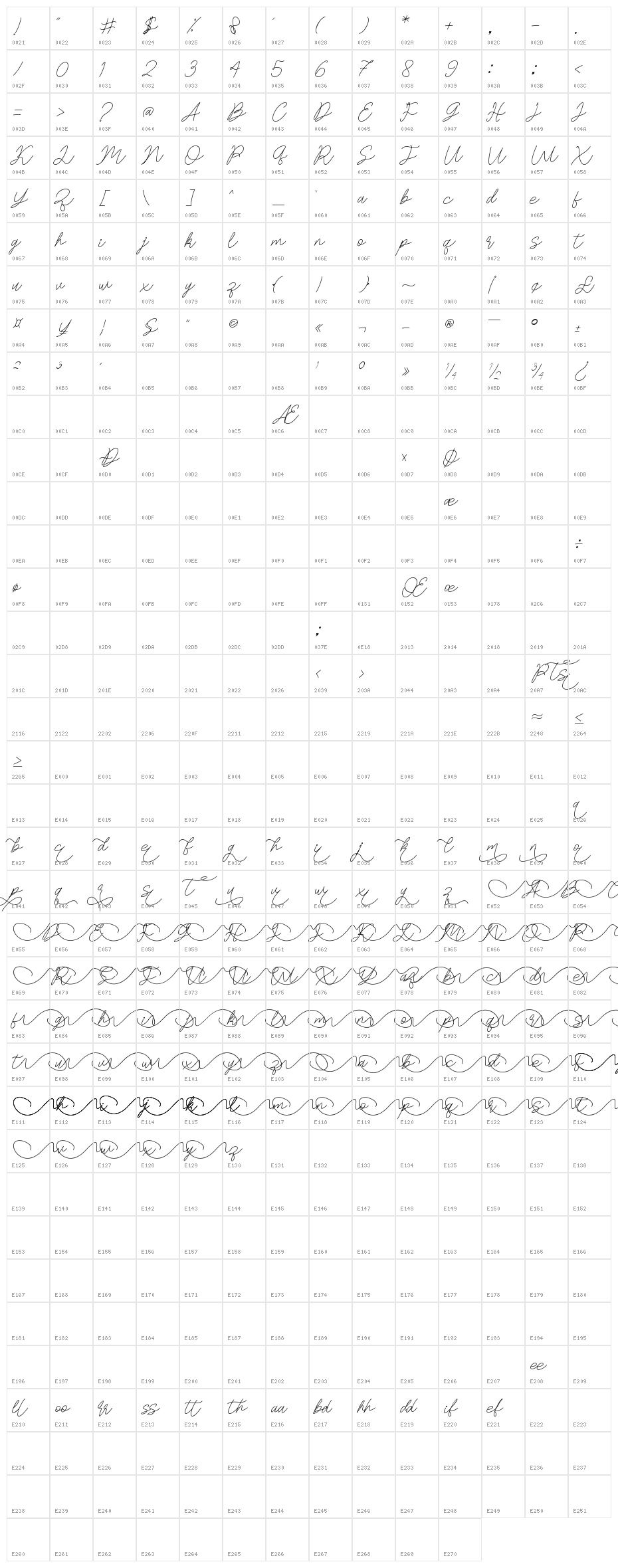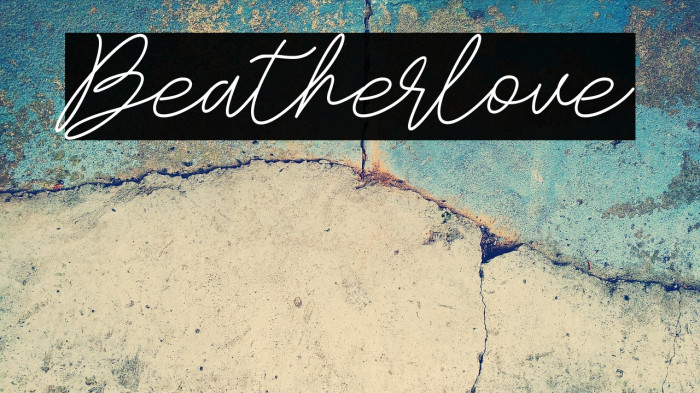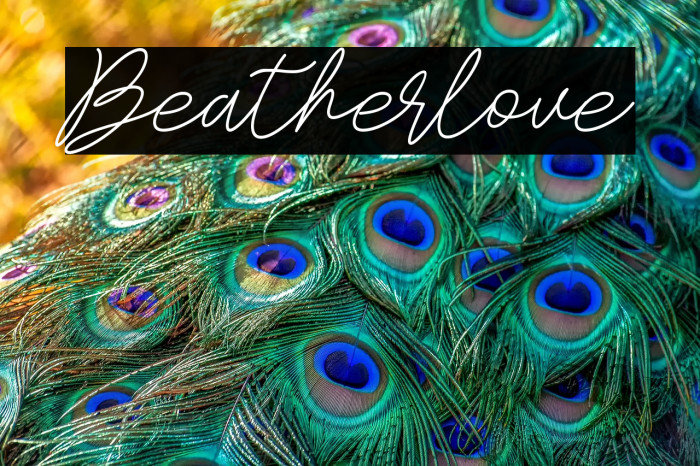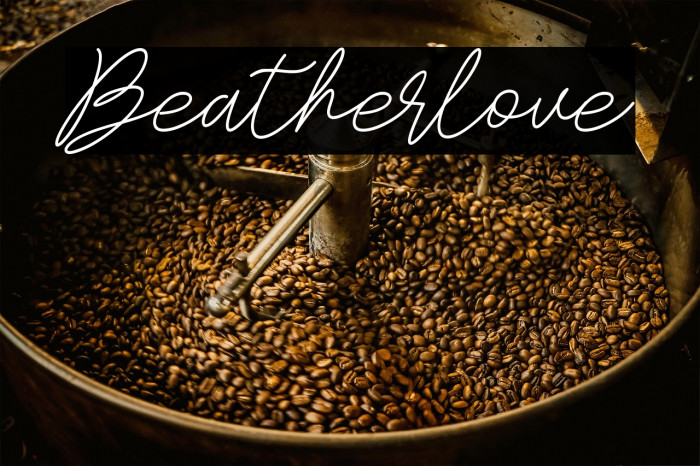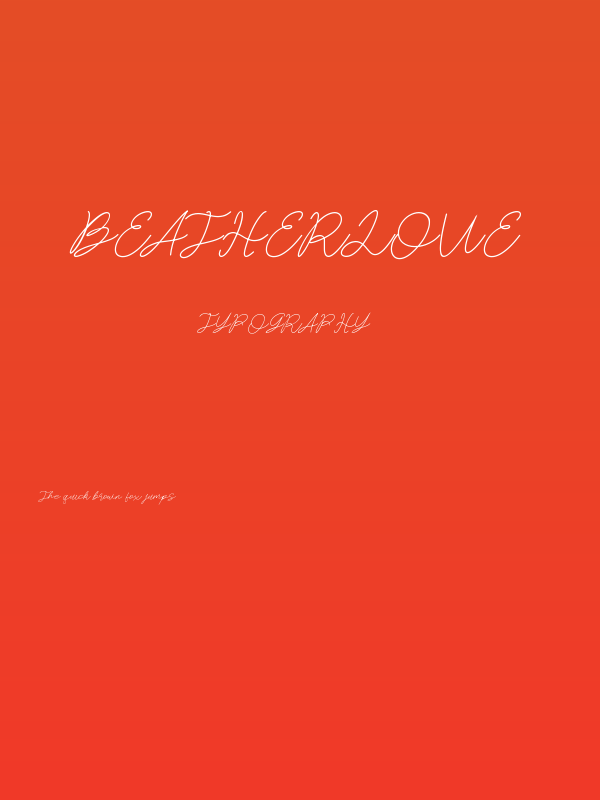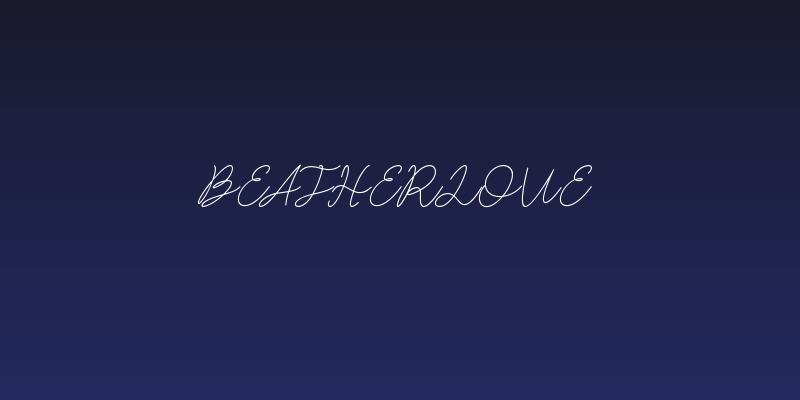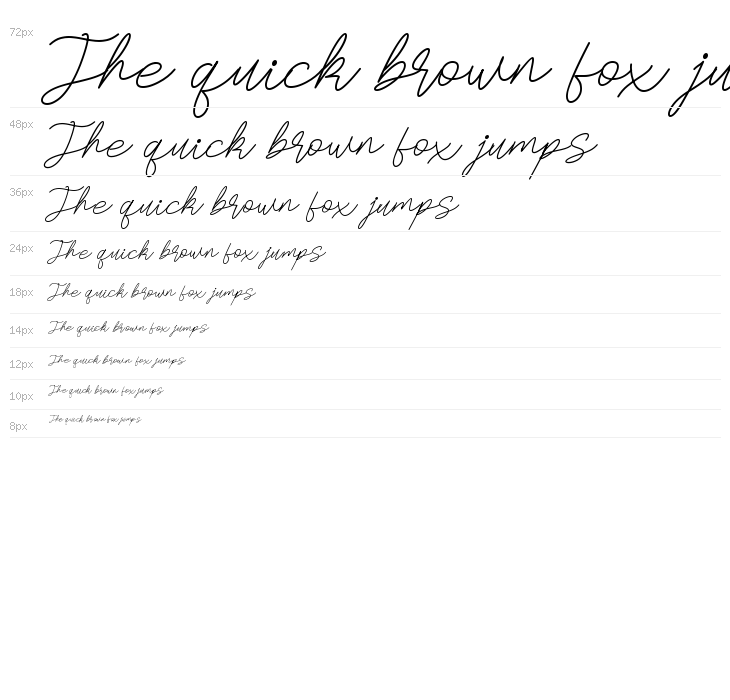
Beatherlove Font
Beatherlove Description
This font features a flowing, cursive style with elegant, interconnected letters that mimic natural handwriting. The characters are gracefully slanted, providing a sense of movement and fluidity. Each letter is crafted with smooth, continuous strokes, enhancing the handwritten aesthetic. The uppercase letters are slightly larger and more pronounced, while the lowercase letters maintain a consistent height, contributing to a harmonious balance. The numerals and special characters are designed to match the cursive style, ensuring uniformity across all elements. This font exudes a sense of sophistication and personal touch, making it ideal for projects that require a personal or artistic flair.
| Overall Style | Elegant, Handwritten |
| Proposed Projects | Ideal for wedding invitations, personal branding, greeting cards, and artistic projects. |